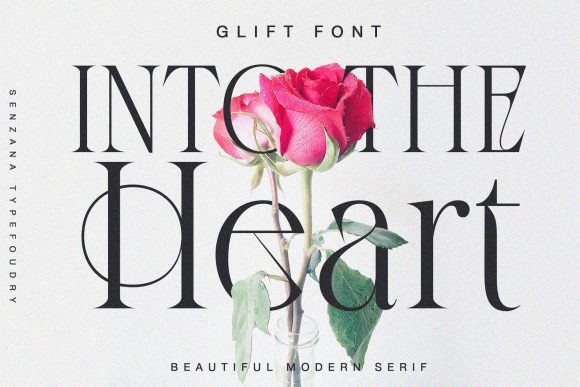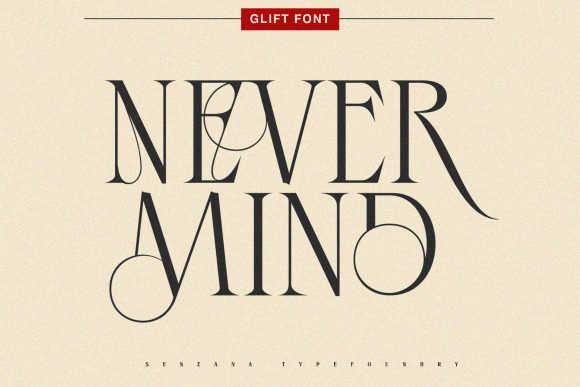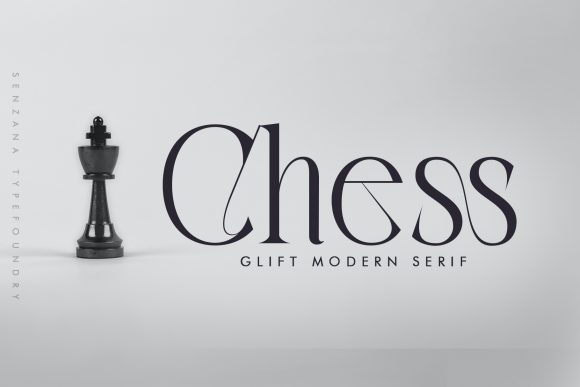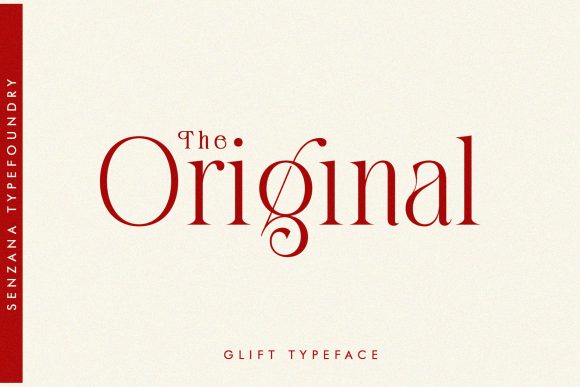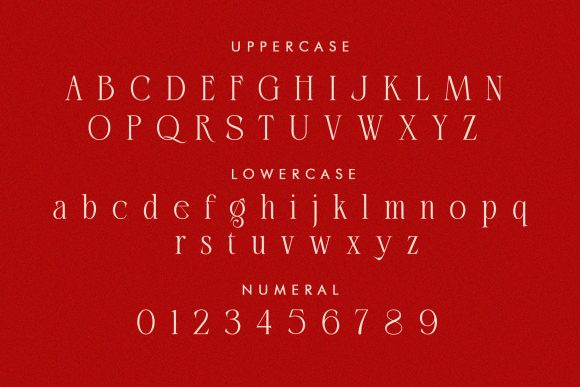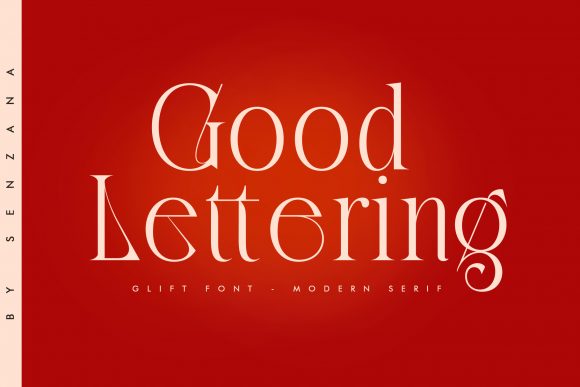
Introducing Glift Font: Elevate Your Designs with Elegance
In the world of typography, a font can make or break a design. For designers and crafters looking to add a touch of sophistication and whimsy to their creations, Glift Font is an excellent choice. This elegant and delicate serif font is expertly designed to make your projects look out of this world.
The Characteristics of Glift Font
Glift Font boasts a range of characteristics that set it apart from other fonts. Its delicate serifs and elegant lines give it a refined and sophisticated feel, making it perfect for designs that require a touch of luxury. The font’s slender strokes and precise lettering ensure that it remains legible, even at smaller sizes.
What Makes Glift Font Stand Out
So, what makes Glift Font stand out from the crowd? Here are a few key features:
- Elegant and Delicate: Glift Font’s serifs are carefully crafted to add a touch of elegance to your designs.
- Versatile: This font is suitable for a wide range of projects, from branding and packaging to wedding invitations and digital graphics.
- Legible: Despite its delicate nature, Glift Font remains highly legible, making it perfect for body text and headings.
- Unique: Glift Font’s distinctive style ensures that your designs will stand out from the crowd.
How to Use Glift Font in Your Designs
Glift Font is incredibly versatile, making it suitable for a wide range of design projects. Here are a few ideas to get you started:
- Branding and Packaging: Use Glift Font to add a touch of elegance to your brand’s logo, packaging, and marketing materials.
- Wedding Invitations: Glift Font’s delicate serifs make it perfect for wedding invitations, save-the-dates, and other stationery.
- Digital Graphics: Add a touch of sophistication to your social media graphics, blog posts, and website headers with Glift Font.
- Crafting: Use Glift Font to create beautiful and unique craft projects, such as handmade cards, gift tags, and scrapbooking pages.
Tips for Getting the Most Out of Glift Font
To get the most out of Glift Font, here are a few tips:
- Experiment with Font Sizes: Glift Font looks stunning at a range of font sizes, from large headings to smaller body text.
- Pair with Other Fonts: Try pairing Glift Font with other fonts to create a unique and visually appealing combination.
- Use in Combination with Images: Glift Font looks beautiful when used in combination with images, particularly those with a vintage or rustic feel.
Glift Font is an elegant and delicate serif font that is sure to elevate your designs. With its versatile nature, unique style, and legibility, it’s perfect for a wide range of projects. Whether you’re a designer, crafter, or DIY enthusiast, Glift Font is an excellent choice for anyone looking to add a touch of sophistication and whimsy to their creations.